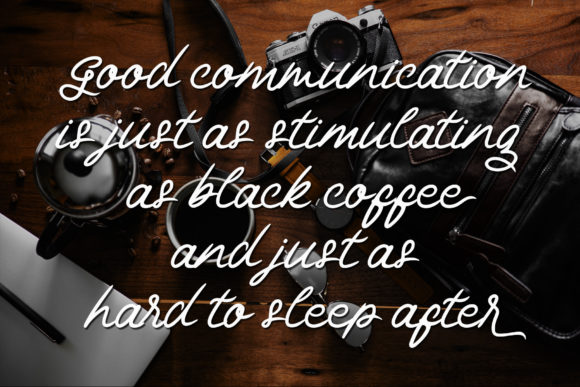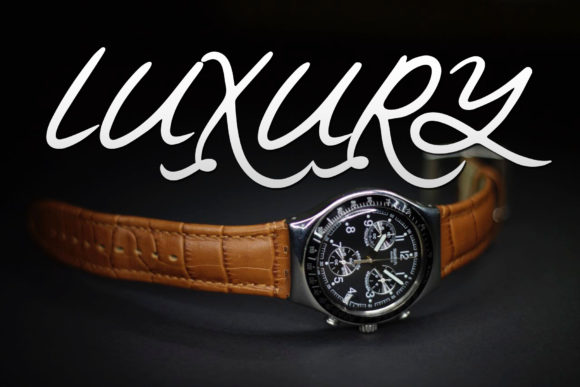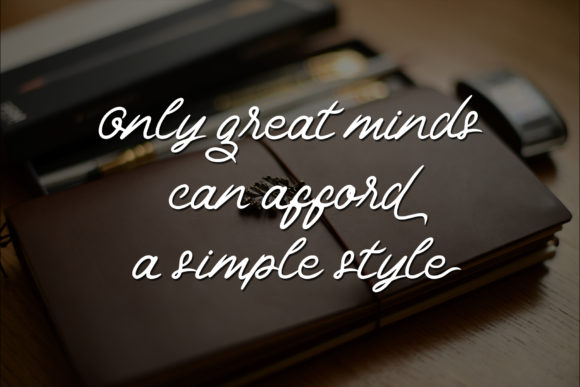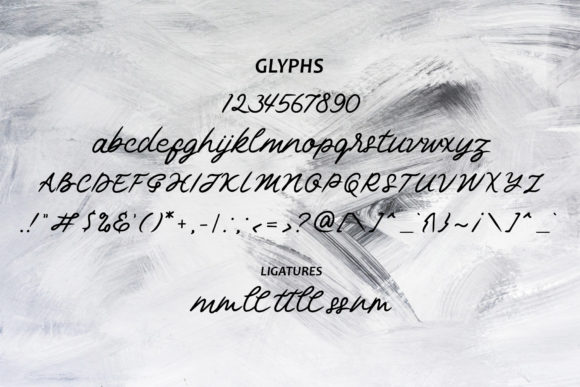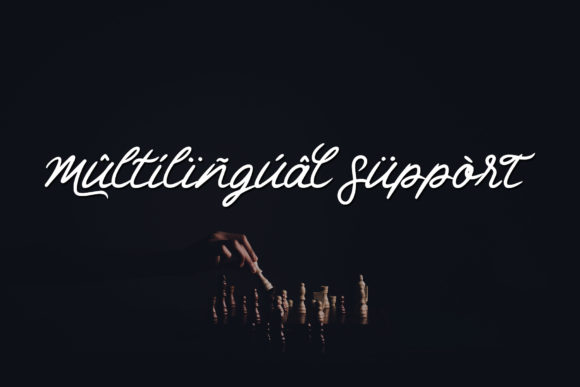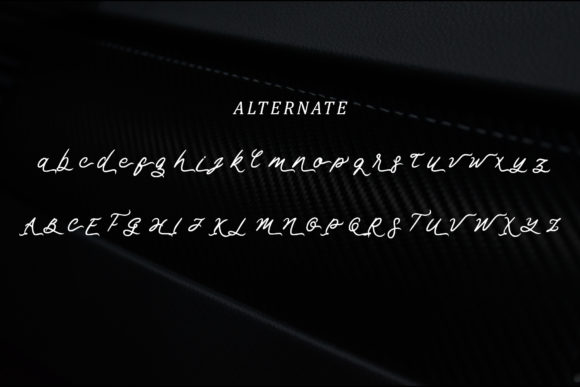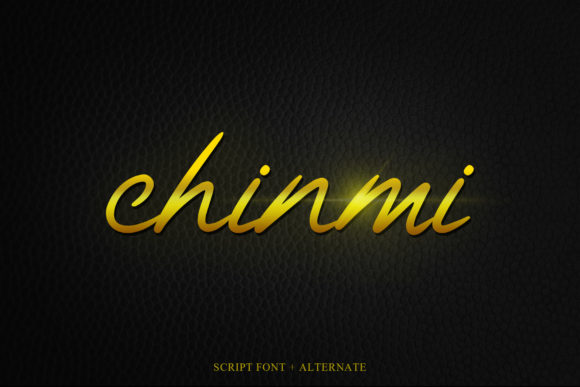
Discover the Elegance of Chinmi Script Font: A Delicacy for Designers
In the world of typography, few fonts manage to capture the essence of elegance and sophistication as beautifully as the Chinmi Script Font. This exquisite font, inspired by the Japanese term “Chinmi” meaning “rare taste” or “delicacy”, brings a unique blend of style and refinement to any design project. Whether you’re a seasoned designer or a crafting enthusiast, Chinmi Script Font is a versatile tool that can elevate your creations to new heights.
What is Chinmi Script Font?
Chinmi Script Font is a meticulously crafted typeface that stands out for its distinctive uppercase letters, elegant lowercase letters, and a beautiful flow that mimics handwritten calligraphy. This script font is not just a collection of letters; it’s an expression of artistry and sophistication. Its unique design makes it perfectly suited for a variety of applications, from traditional name cards and posters to modern social media posts and invitations.
Unique Features of Chinmi Script Font
- Distinctive Uppercase Letters: The uppercase letters in Chinmi Script Font are designed with a unique flair, making them stand out in any text. Their stylized forms add a touch of luxury and grandeur to any design.
- Elegant Lowercase Letters: The lowercase letters are crafted with elegance and grace, exhibiting a fluidity that enhances the readability and aesthetic appeal of the text.
- Versatility: One of the key features of Chinmi Script Font is its versatility. It can be used in a wide range of projects, including but not limited to, name cards, posters, invitations, social media posts, and more.
- Cultural Inspiration: Drawing inspiration from Japanese calligraphy, Chinmi Script Font brings an element of Eastern elegance to your designs, making them stand out in a predominantly Western typographic landscape.
Applications of Chinmi Script Font
The applications of Chinmi Script Font are vast and varied. Here are a few ideas to get you started:
- Name Cards: Add a touch of personal elegance to your business cards or personal name cards with Chinmi Script Font.
- Posters: Whether it’s for a movie, event, or advertisement, Chinmi Script Font can add a level of sophistication and allure to your posters.
- Invitations: Make your invitations special with Chinmi Script Font. Perfect for weddings, parties, and formal events.
- Social Media Posts: Elevate your social media presence with stylish and elegant text. Chinmi Script Font can make your posts stand out in crowded feeds.
Tips for Using Chinmi Script Font
To make the most out of Chinmi Script Font, consider the following tips:
- Pair with Simple Fonts: For optimal readability, pair Chinmi Script Font with simpler, sans-serif fonts for body text.
- Use for Headings and Titles: Leverage the elegance of Chinmi Script Font for headings, titles, and key messages.
- Experiment with Colors: Enhance the aesthetic appeal by experimenting with different colors. Pastel shades, gold, and black can particularly complement the elegance of this font.
Chinmi Script Font is more than just a typeface; it’s a statement of elegance and refinement. Its unique design elements, inspired by the concept of “rare taste” or “delicacy”, make it a valuable addition to any designer’s or crafter’s toolkit. Whether you’re aiming to create stunning visual content for digital platforms or crafting beautiful, hand-crafted projects, Chinmi Script Font offers the versatility and sophistication you need. Embrace the elegance of Chinmi Script Font and let your designs speak of rare taste and delicacy.